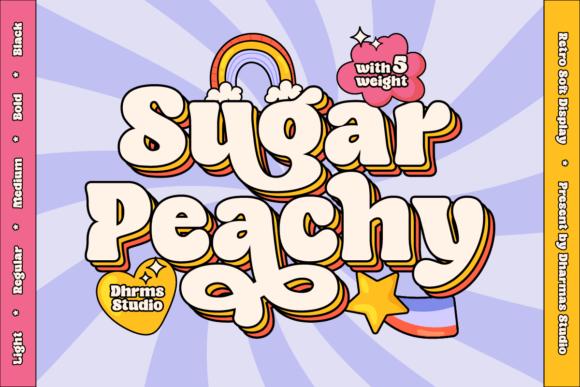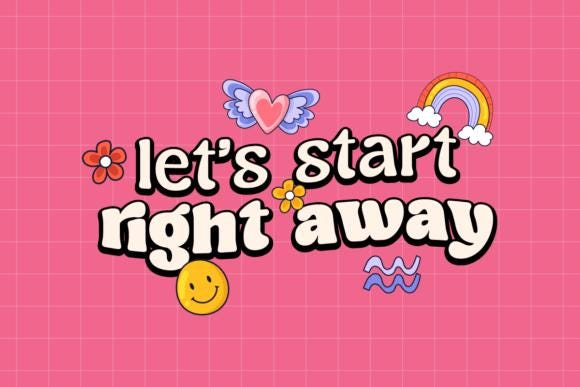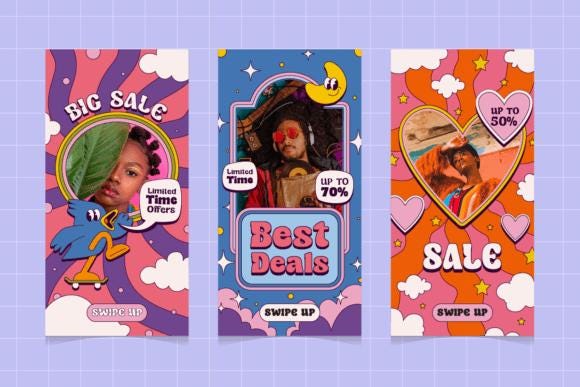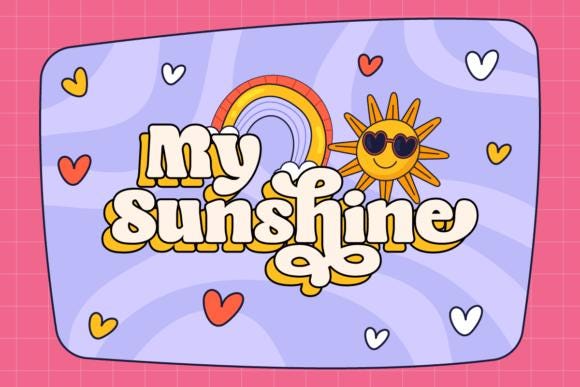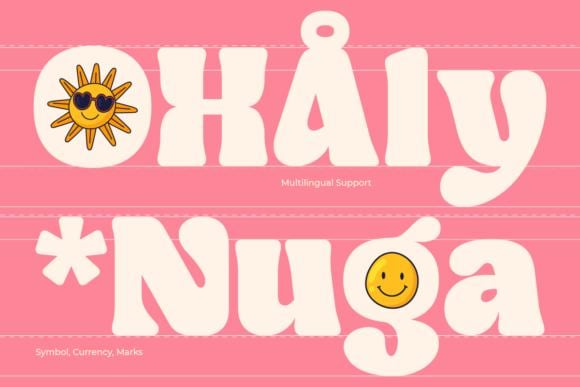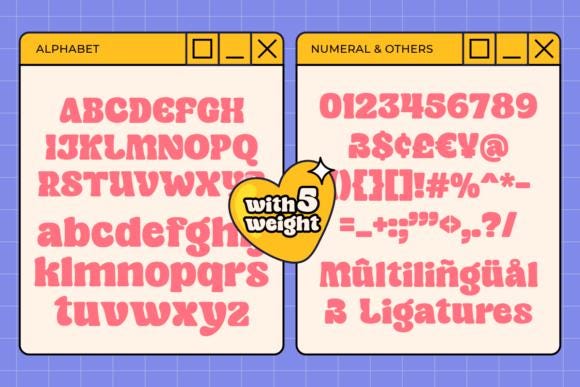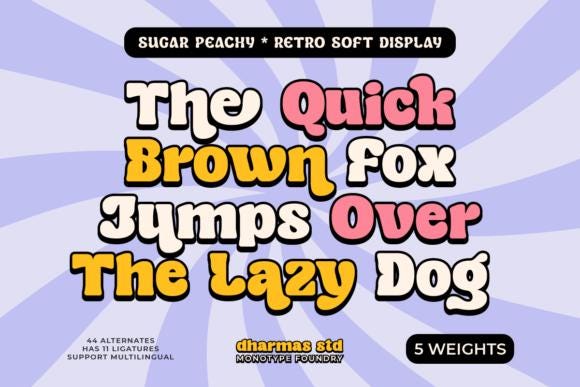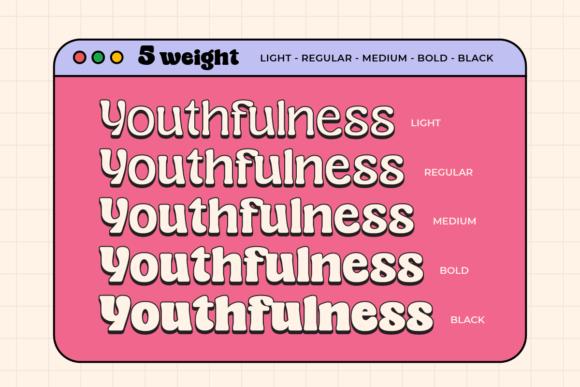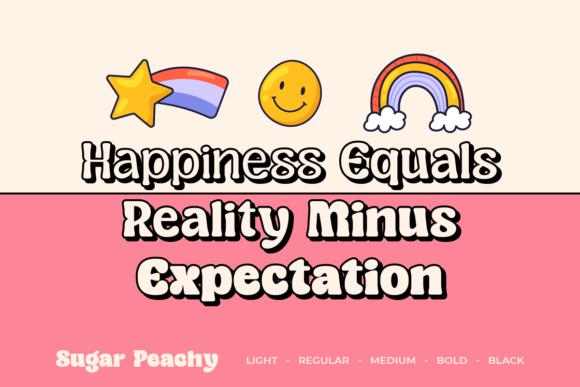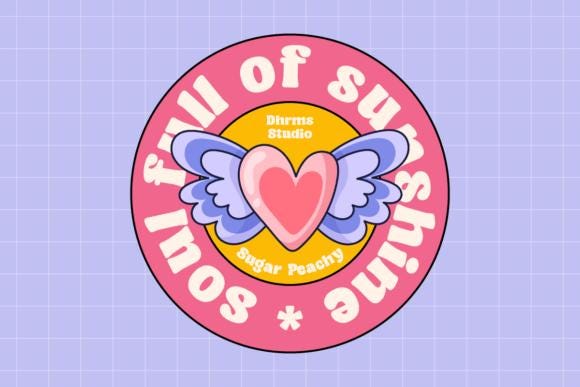
Sugar Peachy Font
Introducing Sugar Peachy, a font that exudes happiness, uniqueness, and wonders. This groovy display font has a retro 70s style with soft and chewy characteristics that are perfect for display, titling, and even logos or headers.